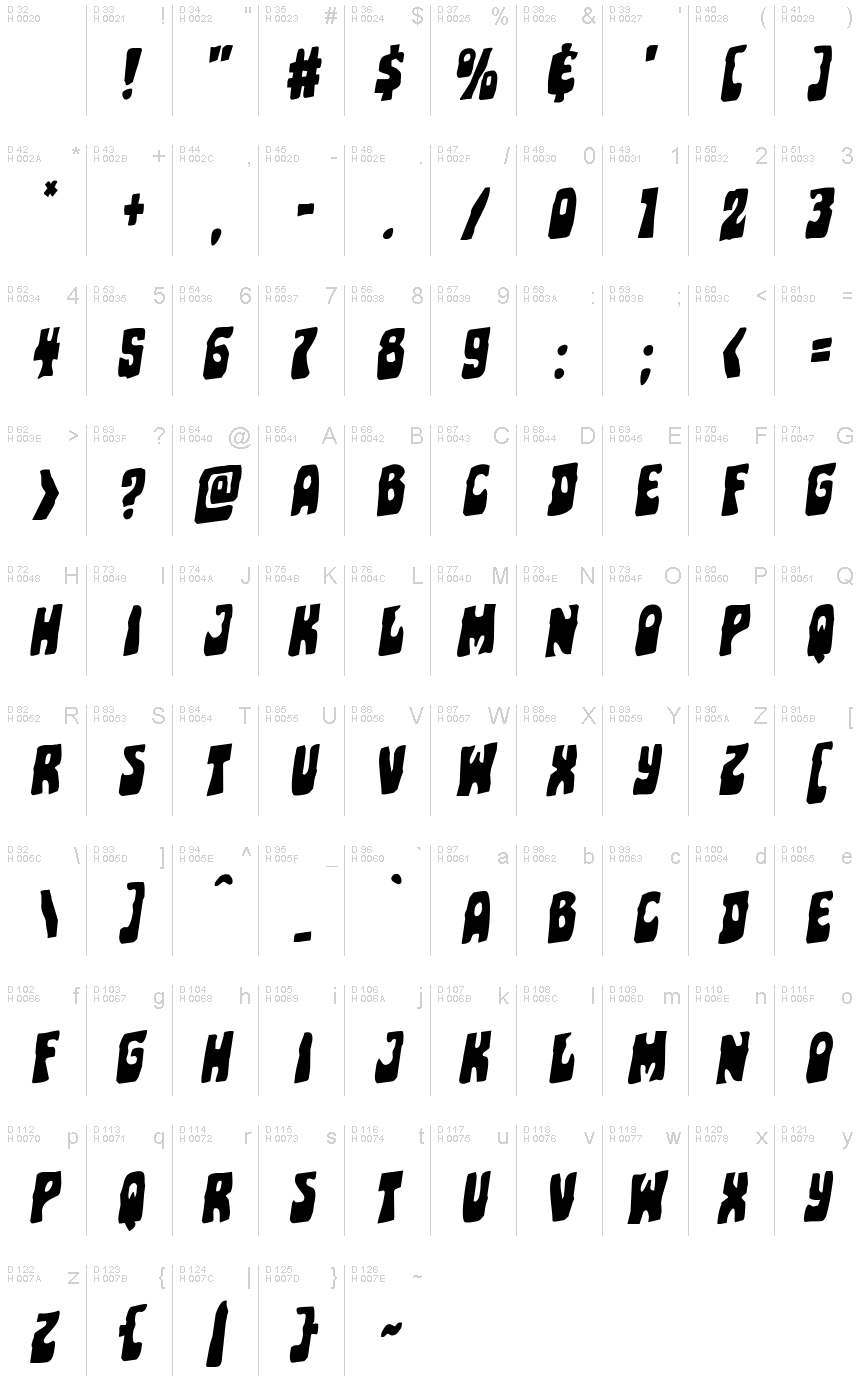
Pocket Monster Staggered Rotalic
Pocket Monster is a striking display font that exudes a fearsome, unearthly presence. Its staggered, rotalic silhouette evokes the raw, primal energy of monstrous creatures, with bold strokes that demand attention. Designed by Daniel Zadorozny, this condensed font perfectly balances a sense of danger and intensity, making it an ideal choice for horror-themed branding, event posters, or eye-catching title treatments.
Pocket Monster's unique aesthetic lends itself well to a variety of applications, from video game logos to heavy metal album covers. Its bold, condensed form ensures strong legibility, while the rotalic slant and staggered edges imbue the font with an unsettling, otherworldly charm. This font is a remarkable typographic tool for designers seeking to evoke a sense of the monstrous and the macabre.